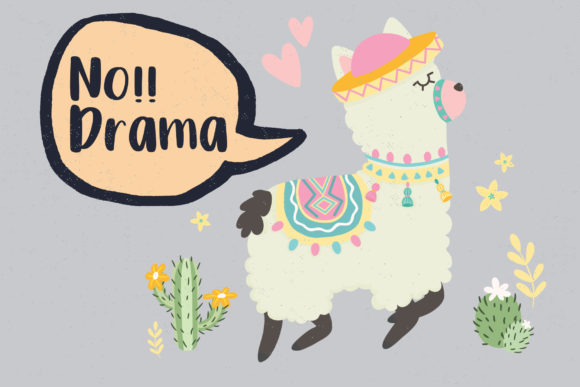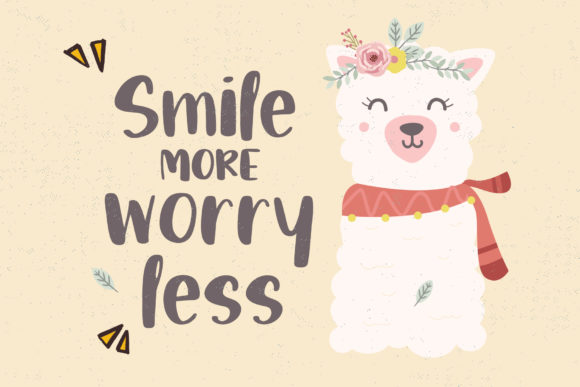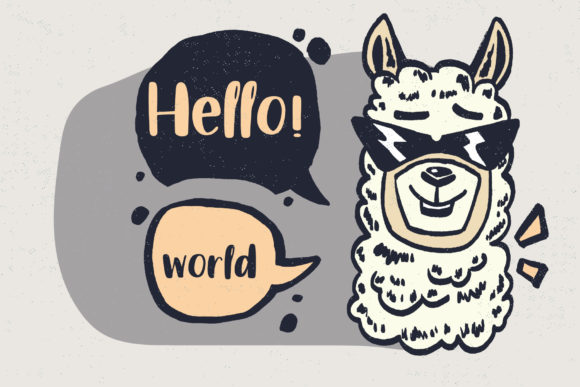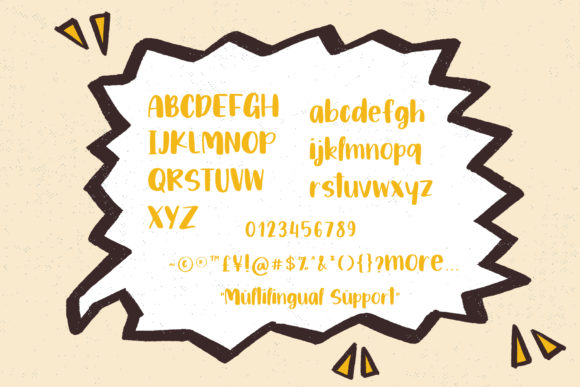
Have you ever stared at a blank page, feeling stuck and unsure of where to begin? That’s where the magic happens – in those moments of creative freedom, anything is possible. As designers, we’re always on the lookout for the perfect tools to bring our ideas to life, and that’s where the Jack Fruit Font comes in.
This lovely, handwritten font is more than just a pretty face – it’s a game-changer for any design project. With its bold, playful letters, the Jack Fruit Font adds a joyful spark to even the most mundane designs, transforming them into something truly special.
Whether you’re working on a branding project, creating a social media campaign, or simply need a font to add some personality to your blog, the Jack Fruit Font is a valuable addition to your design toolkit.
Jack Fruit Font Key Features
- Font Family: Jack Fruit Font offers a unique and exotic font family with multiple styles, including Regular, Bold, Italic, and Bold Italic.
- Character Set: The font includes a wide range of characters, including Latin, Greek, and Cyrillic alphabets, as well as punctuation and special characters.
- Unique Characteristics: Jack Fruit Font features a distinctive, tropical design with intricate details and patterns, making it perfect for use in branding, packaging, and advertising.
Jack Fruit Font Review
Overall, I’d say Jack Fruit Font is an interesting addition to any design project. Here are the things that work well: ✨
- Unique Character Set: The font has a wide range of characters, including many international symbols and accents, which is a great feature for designers who need to cater to diverse audiences.
- Craftsmanship: The font’s letterforms are well-crafted, with clear lines and a smooth, cohesive feel.
- Style Versatility: Jack Fruit Font comes in multiple styles, from casual to formal, making it easy to adapt to various design contexts.
However, I do have some concerns: ⚠️
- Legibility Issues: At small font sizes, some letterforms can become difficult to read, which might affect the overall effectiveness of the design.
- Limited Weight Options: While the font has multiple styles, the weight options are somewhat limited, which might restrict the designer’s ability to achieve the desired visual impact.
Overall, Jack Fruit Font is a solid choice for designers who want to add some personality to their work. While it’s not without its limitations, it’s a great starting point for creative projects. With some careful consideration and adjustment, it can be a valuable addition to any design toolkit.
Tips for Getting the Most Out of Jack Fruit Font
For the best results, use Jack Fruit Font in bold or italic styles to add emphasis to your text. Experiment with different font sizes and colors to create visual interest. Consider using Jack Fruit Font in combination with other fonts to create a unique and eye-catching design.
Jack Fruit Font is perfect for creating eye-catching social media graphics, posters, and flyers. It’s also great for adding a touch of whimsy to your branding and marketing materials. Use it to create a bold and playful headline or to add a touch of personality to your text.